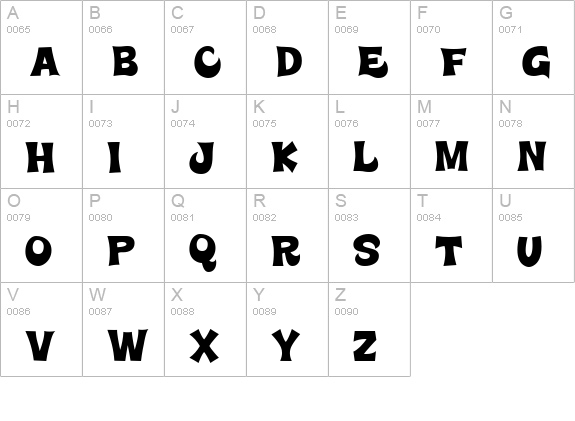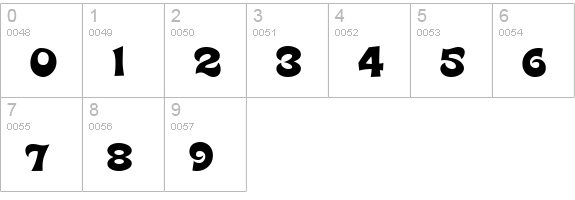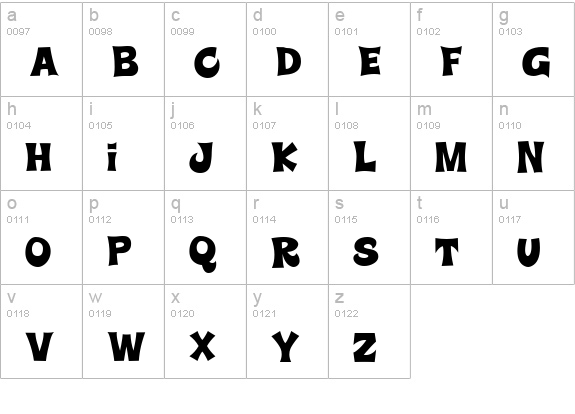
Super Delicious BTN Font Details
Super Delicious BTN is a visually stunning font that combines modern elegance with a touch of playfulness. Its sleek lines and bold curves make it perfect for a wide range of design projects, from branding to packaging to social media graphics. This font exudes a sense of sophistication and creativity that is sure to make your text stand out. What makes Super Delicious BTN even more appealing is that it is available for free download at FontsMarket.com. This means you can add a touch of style and flair to your projects without having to spend a dime. Whether you're a seasoned designer or just starting out, this font is sure to elevate your work to the next level. Download Super Delicious BTN today and unleash your creativity with this versatile and eye-catching font.